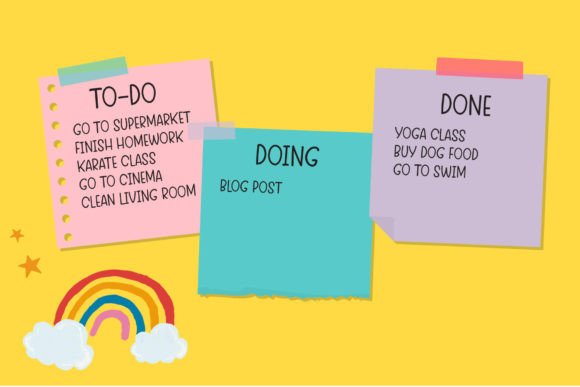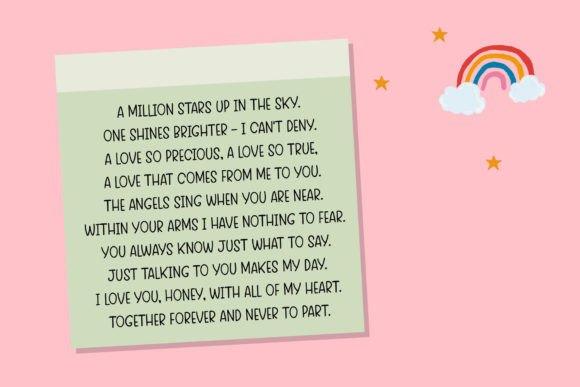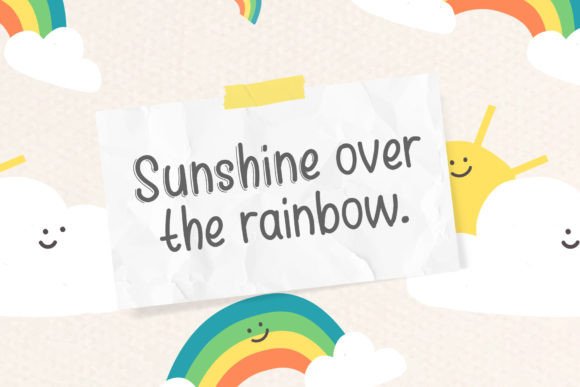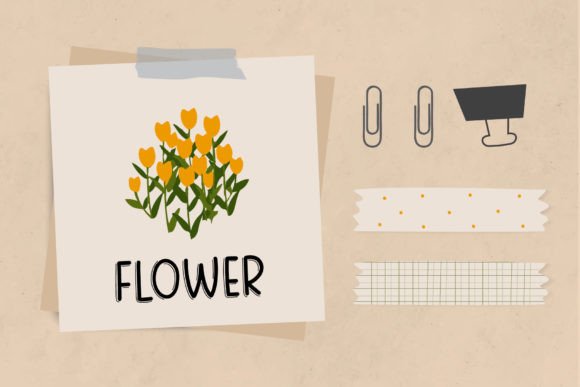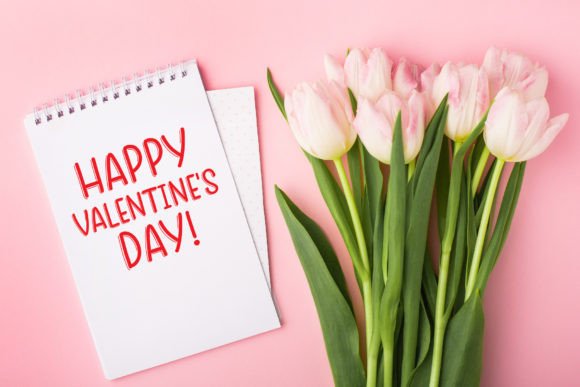
Introducing Flora Notes Font: The Cute and Fun Handwritten Font You Need
Are you a designer, crafter, or DIY enthusiast looking for a font that can add a touch of personality to your creations? Look no further than Flora Notes Font, a cute and fun handwritten font that’s perfect for a wide range of projects. In this article, we’ll take a closer look at Flora Notes Font, its features, and how it can elevate your designs.
What is Flora Notes Font?
Flora Notes Font is a modern, handwritten font that’s designed to bring a sense of whimsy and playfulness to your designs. With its delicate lines, rounded edges, and charming letterforms, this font is perfect for creating eye-catching titles, headings, and body text. Whether you’re working on a branding project, crafting a social media graphic, or creating a handmade card, Flora Notes Font is sure to make your design stand out.
Key Features of Flora Notes Font
- Cute and Fun Design: Flora Notes Font features a playful, handwritten design that’s sure to capture the attention of your audience.
- Versatile: This font is perfect for a wide range of projects, from branding and advertising to crafting and DIY.
- Easy to Read: Despite its playful design, Flora Notes Font is easy to read, making it perfect for body text and longer blocks of content.
How to Use Flora Notes Font in Your Designs
Flora Notes Font is incredibly easy to use and can be incorporated into your designs in a variety of ways. Here are a few ideas to get you started:
- Branding and Advertising: Use Flora Notes Font to create eye-catching logos, business cards, and brochures that showcase your brand’s personality.
- Social Media Graphics: Add a touch of whimsy to your social media graphics with Flora Notes Font, perfect for creating engaging posts and stories.
- Crafting and DIY: Use Flora Notes Font to create handmade cards, gift tags, and other craft projects that showcase your creativity.
Benefits of Using Flora Notes Font
So why should you choose Flora Notes Font for your designs? Here are just a few benefits of using this amazing font:
- Unique and Eye-Catching: Flora Notes Font is a unique and eye-catching font that’s sure to make your designs stand out.
In conclusion, Flora Notes Font is a cute and fun handwritten font that’s perfect for designers, crafters, and DIY enthusiasts. With its versatile design, easy-to-read letterforms, and compatibility with multiple platforms, this font is sure to elevate any creation. Whether you’re working on a branding project, crafting a social media graphic, or creating a handmade card, Flora Notes Font is the perfect choice. So why wait? Download Flora Notes Font today and start creating amazing designs that showcase your personality and style.